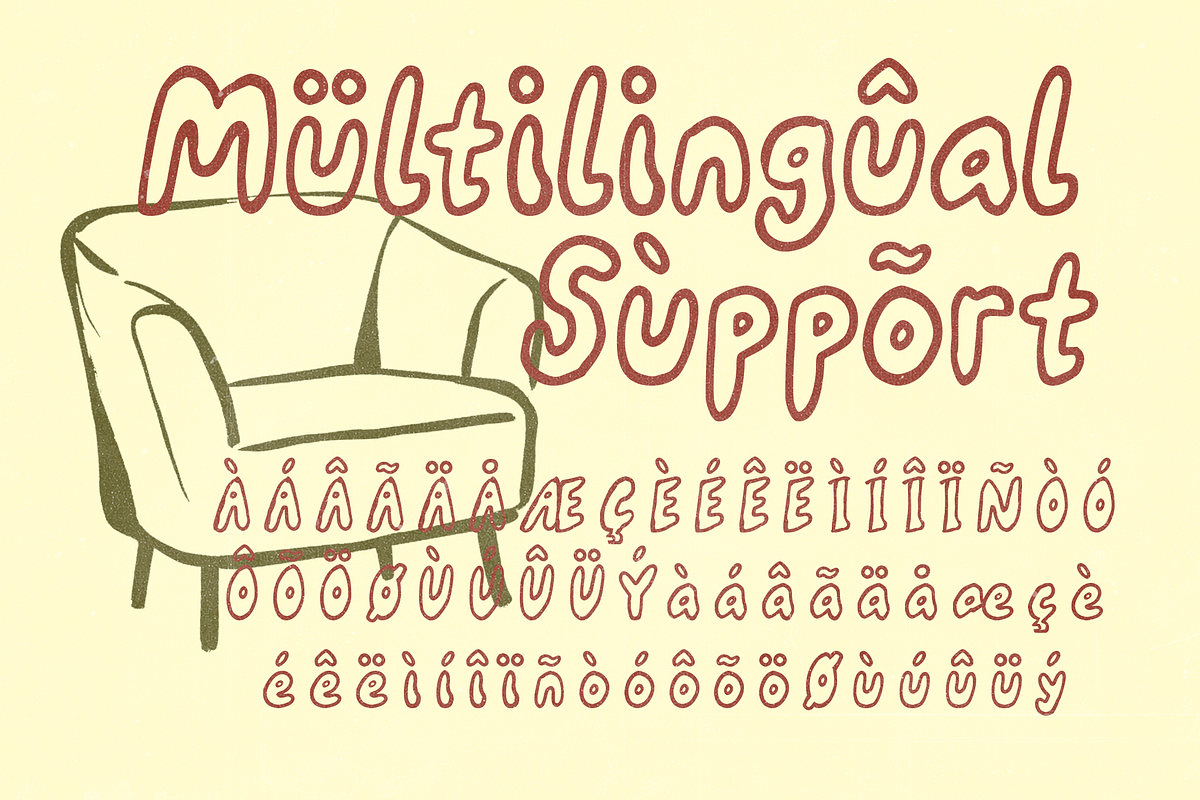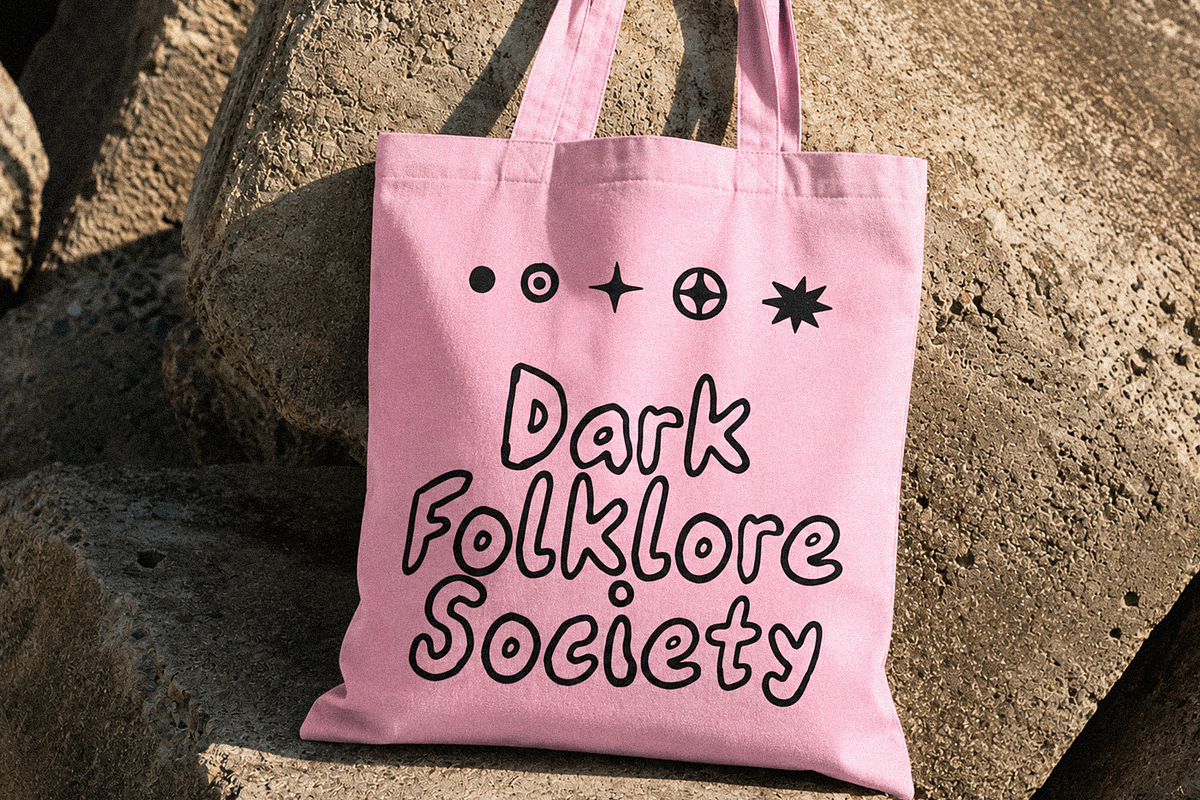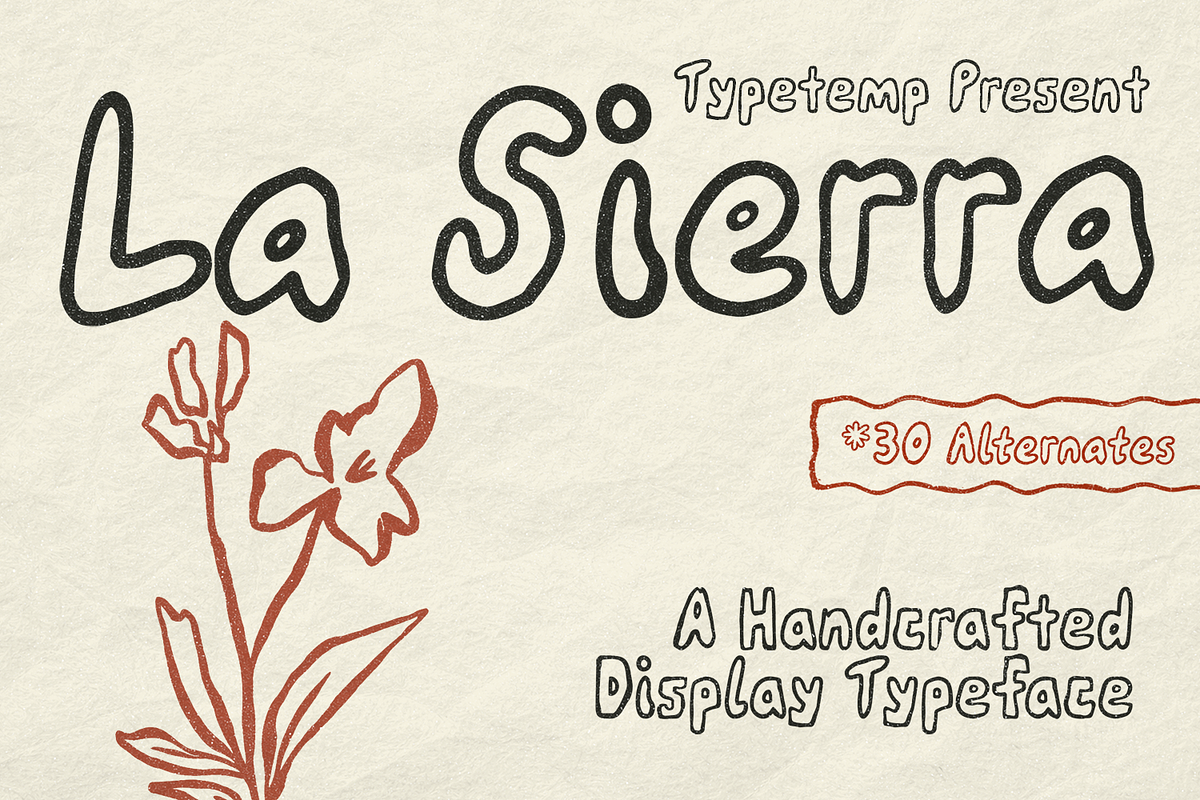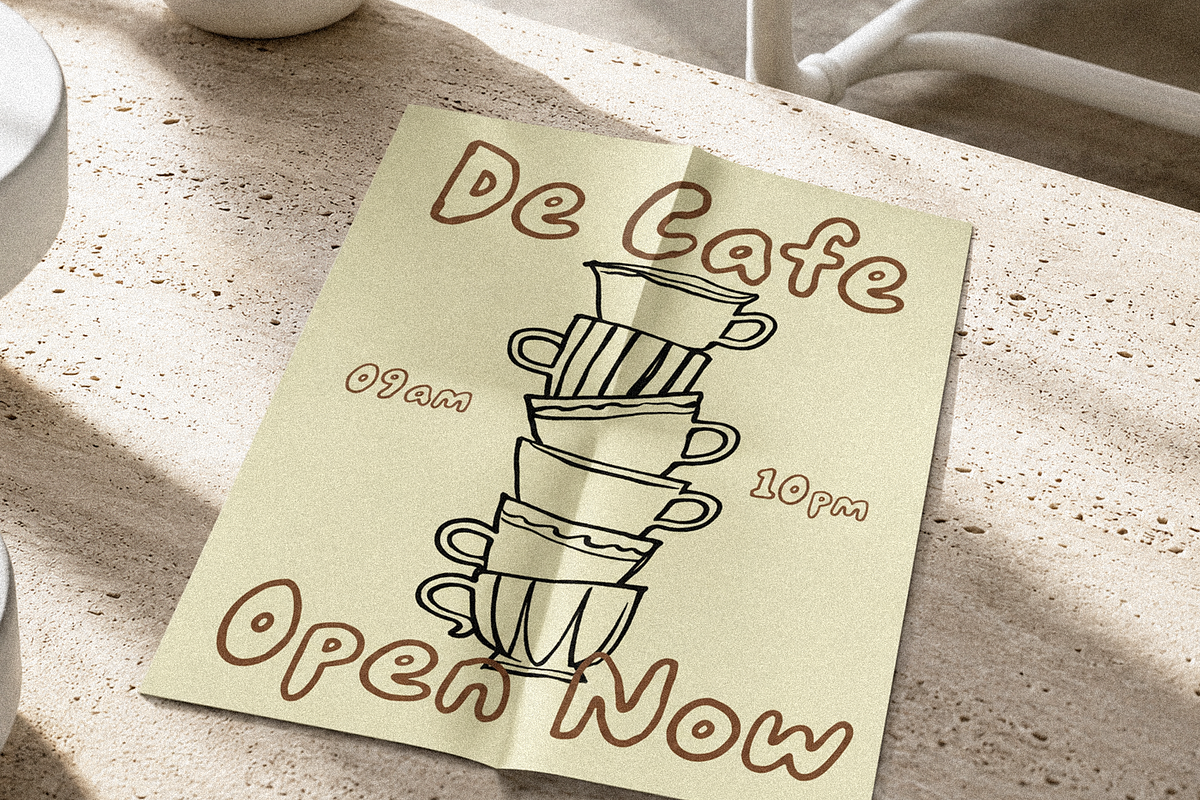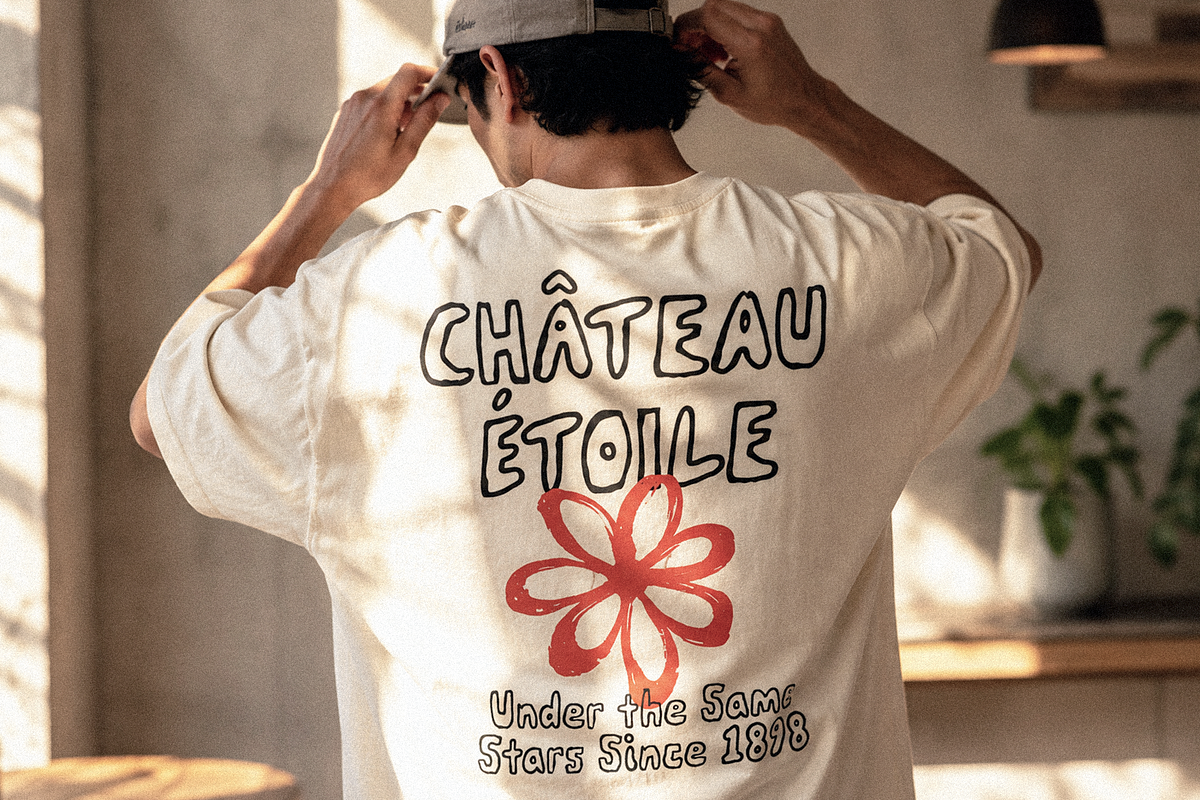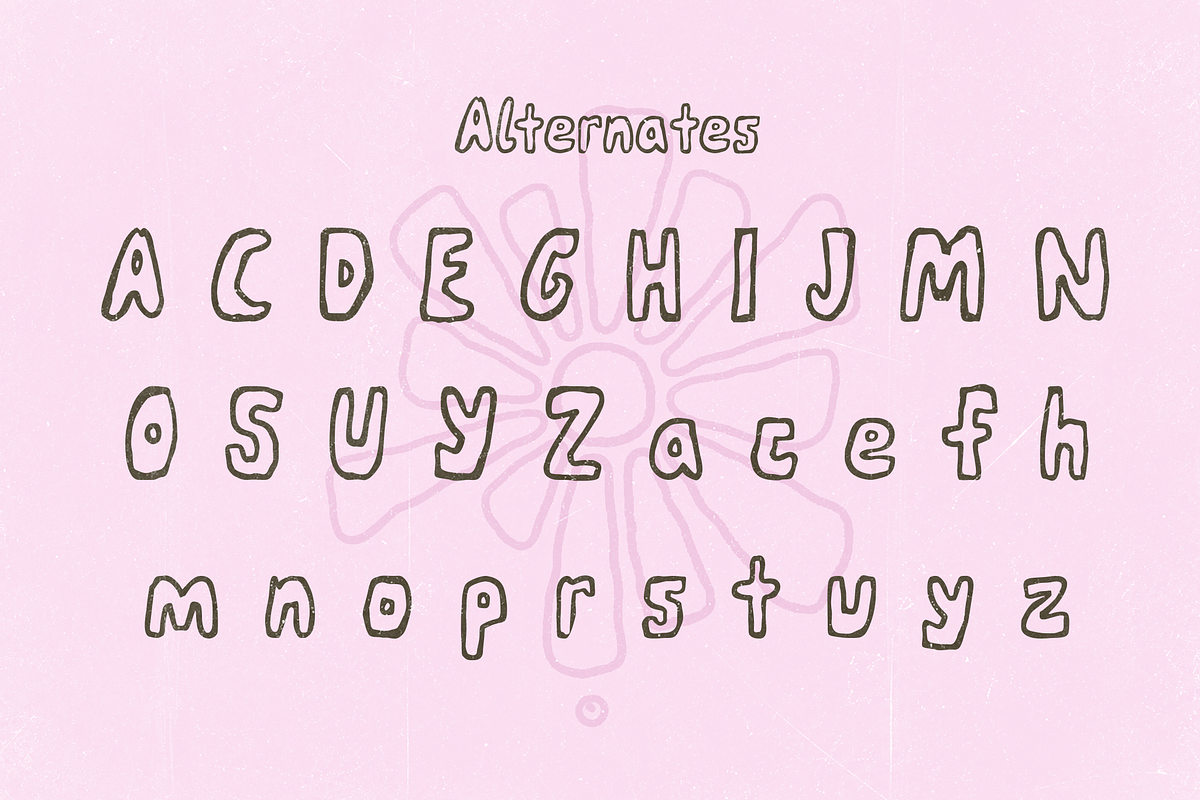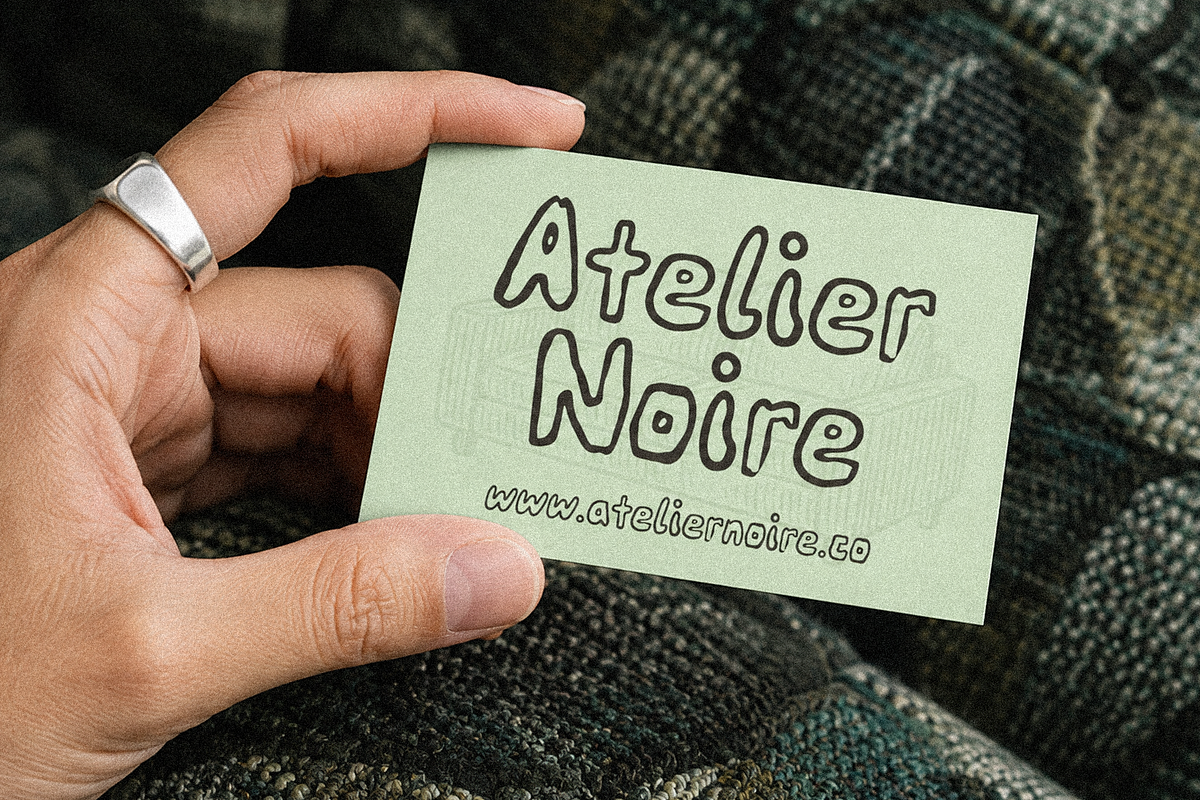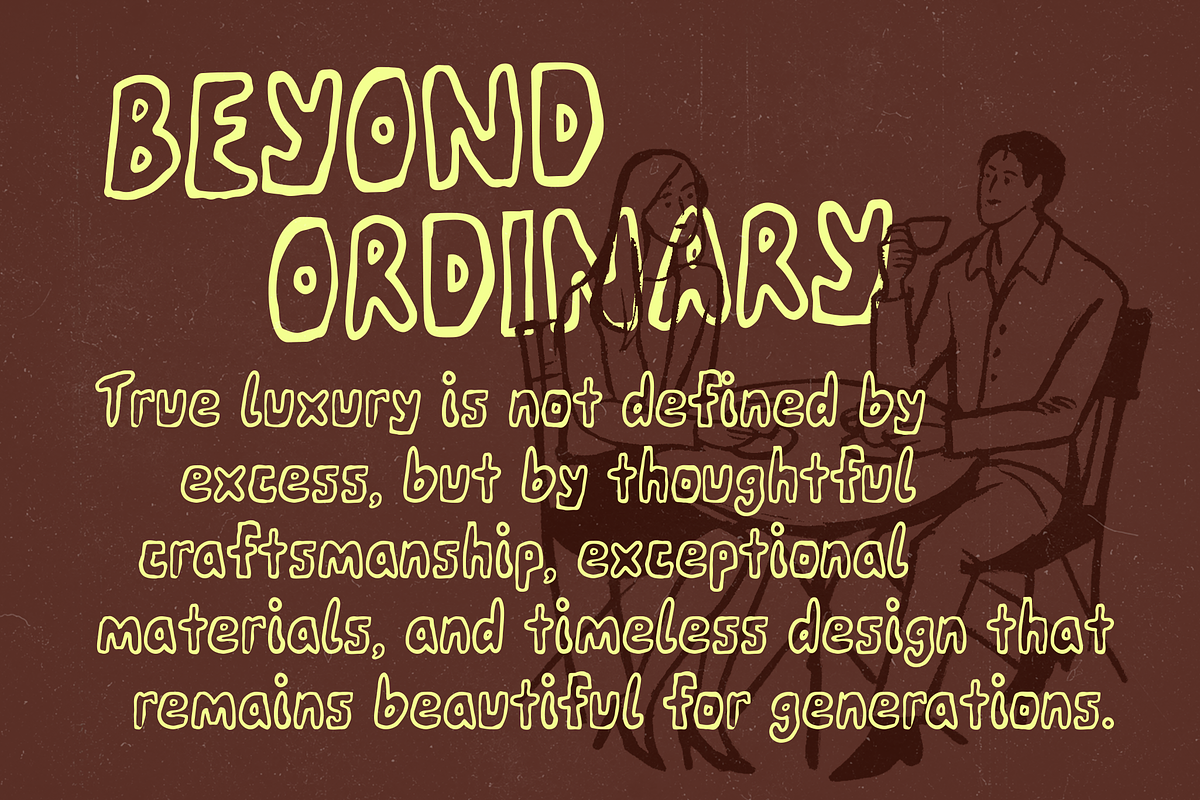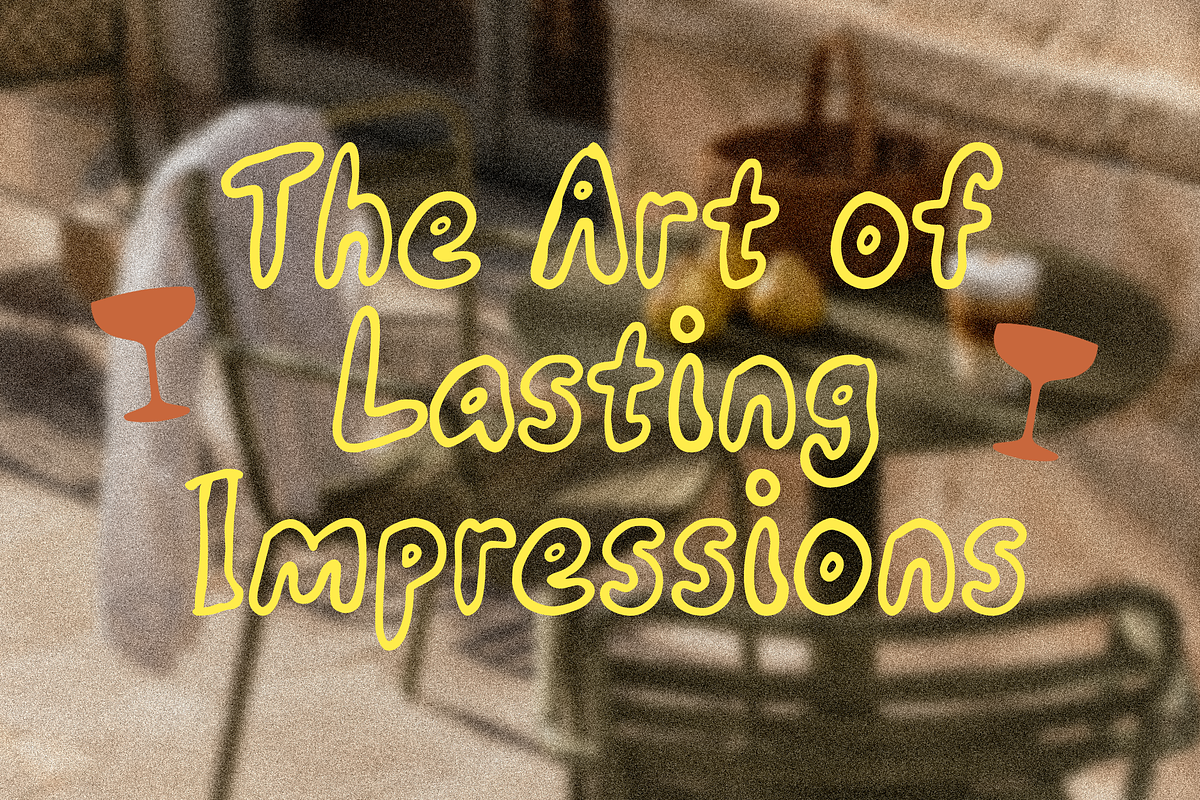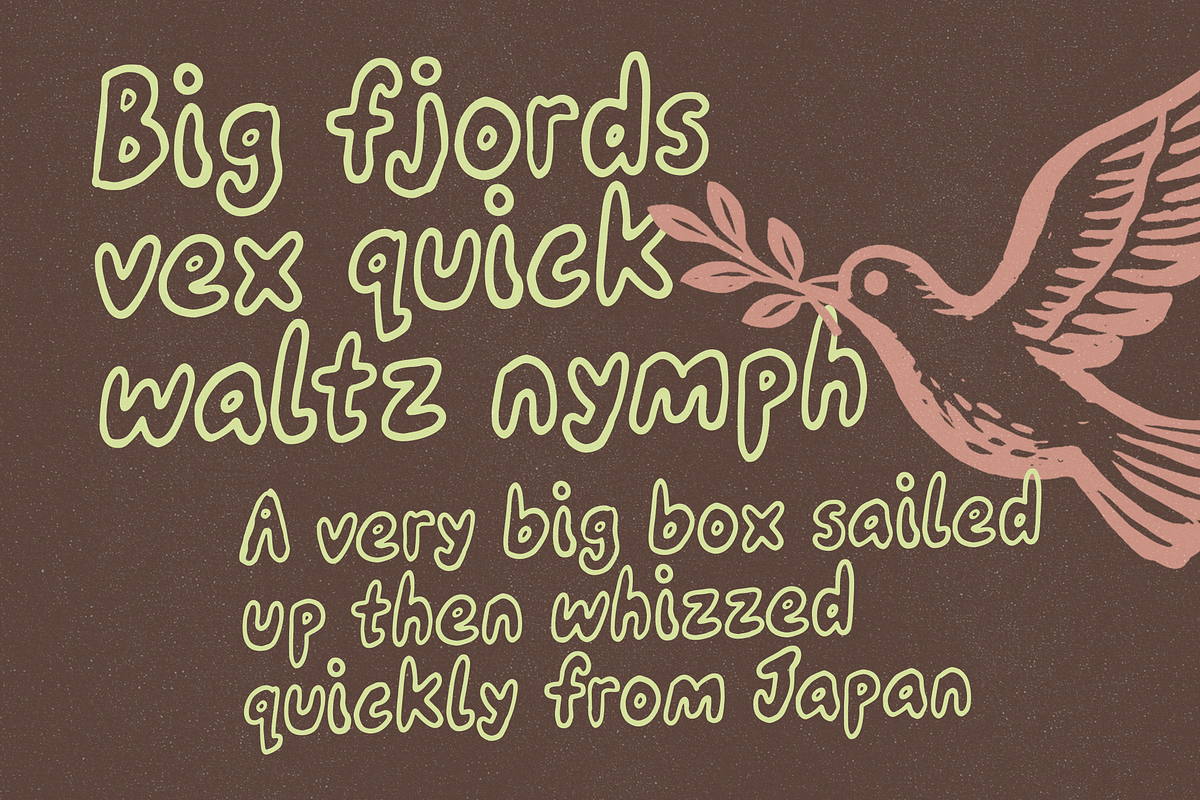
La Sierra Handcrafted Display
La Sierra is a warm, organic handcrafted display typeface designed to bring a cozy, artisanal feel to your designs. Featuring rounded monoline outlines, subtle textured fills, and whimsical hand-drawn letterforms, this font captures an authentic botanical and bohemian aesthetic. Included with 30 alternate characters, La Sierra gives you creative flexibility to build unique, customized headers and brand identity elements.
- Handcrafted monoline design with soft, rounded character outlines.
- Includes 30 alternate characters for versatile typographic customization.
- Organic, botanical-inspired aesthetic with a warm handmade texture.
Detailed Usage
- Logos & Branding: A perfect choice for organic skincare brands, boutique flower shops, artisanal bakeries, cozy cafes, and lifestyle studios.
- Packaging Design: Beautifully complements organic tea boxes, specialty coffee bags, eco-friendly product labels, handmade soap packaging, and botanical cosmetics.
- Editorial & Layouts: Excellent for recipe book titles, aesthetic magazine headers, wellness guides, event invitations, and story layouts.
- Digital Content: Elevates Social Media post layouts, graphics, website hero headers, thumbnails, and lifestyle video text overlays.